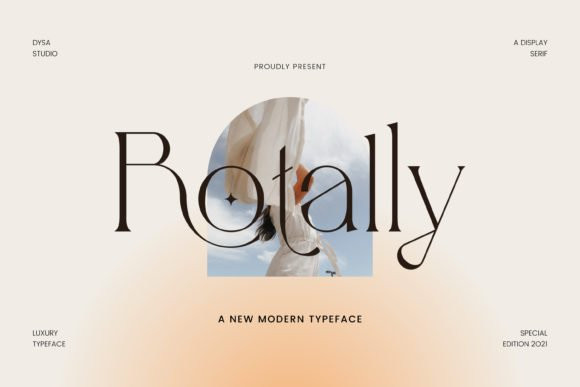
Rotally Font
Rotally is an elegant and thin lettered serif font. It will add a luxury spark to any design project that you wish to create! Fall in love with its incredibly versatile style and use it to create spectacular designs!